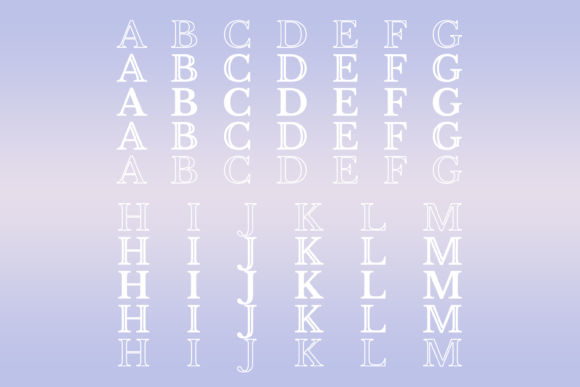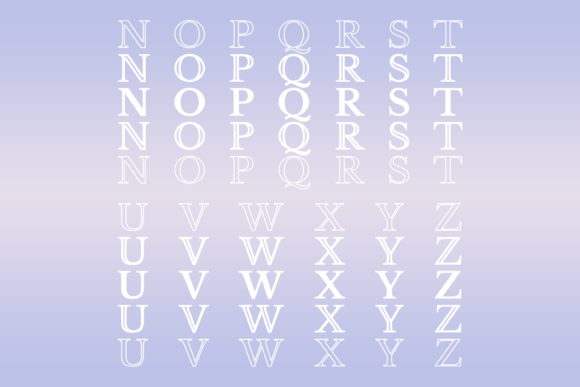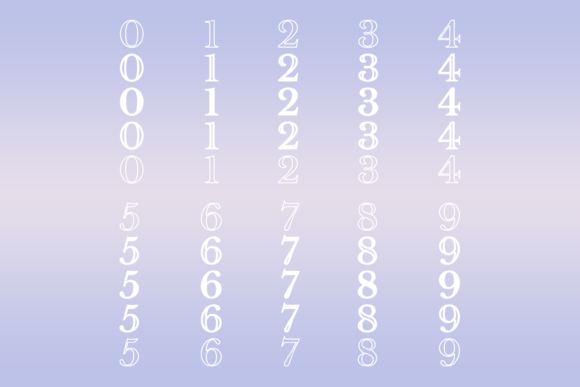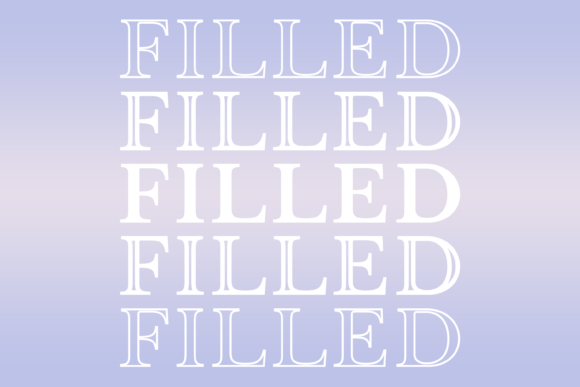
Discover the Magic of Filled Font: Elevate Your Designs with a Lovely Touch
Filled Font is an incredibly cool font that has been gaining popularity among designers and crafters alike. Whether you use it for custom designs, DIY crafts, or just any creation that requires a lovely touch, this font will be an amazing choice. In this article, we’ll dive into the world of Filled Font, exploring its features, benefits, and uses, as well as provide tips and inspiration for incorporating it into your projects.
What is Filled Font?
Filled Font is a unique and visually appealing font that features filled-in letters, giving it a distinctive and decorative look. The font is available in various styles and can be used for a wide range of applications, from digital designs to handmade crafts. Its versatility and charm make it an excellent addition to any designer’s or crafter’s toolkit.
Features and Benefits of Filled Font
So, what makes Filled Font so special? Here are some of its key features and benefits:
- Unique and eye-catching: Filled Font’s distinctive filled-in letters make it stand out from more traditional fonts, adding a touch of personality to your designs.
- Versatile: The font can be used for various projects, including digital designs, print materials, and handmade crafts.
- Easy to read: Despite its decorative nature, Filled Font remains clear and easy to read, making it suitable for use in titles, headings, and short texts.
- Customizable: Filled Font can be easily customized to fit your project’s style and color scheme, allowing you to experiment with different colors, textures, and effects.
Using Filled Font in Your Designs
Filled Font can be used in a wide range of design applications, including:
- Custom designs: Add a personal touch to your designs, such as logos, brochures, and social media graphics.
- DIY crafts: Use Filled Font to create beautiful and unique titles, labels, and decorations for your handmade crafts, such as journals, cards, and scrapbook pages.
- Digital art: Experiment with Filled Font in your digital art projects, such as illustrations, paintings, and mixed media compositions.
Tips and Inspiration for Working with Filled Font
To get the most out of Filled Font, here are some tips and inspiration to keep in mind:
- Experiment with colors: Try pairing Filled Font with different colors and textures to create unique and eye-catching combinations.
- Mix and match: Combine Filled Font with other fonts and styles to add visual interest and depth to your designs.
- Pay attention to spacing: Make sure to adjust the spacing between letters and words to ensure that your text is clear and easy to read.
- Use it sparingly: While Filled Font is beautiful, it can be overwhelming if overused. Use it sparingly to add emphasis and create visual hierarchy in your designs.
Filled Font is an incredibly cool font that can add a lovely touch to your designs and crafts. Its unique features, versatility, and ease of use make it an excellent choice for designers and crafters looking to elevate their projects. With its wide range of applications and possibilities for customization, Filled Font is sure to become a favorite in your toolkit. So why not give it a try and see the magic of Filled Font for yourself?
Whether you’re a seasoned designer or a crafty DIY enthusiast, Filled Font is definitely worth exploring. With its ability to add a personal touch and create visually appealing designs, it’s no wonder that Filled Font is quickly becoming a popular choice among creatives. So go ahead, get creative, and show the world what you can do with Filled Font!